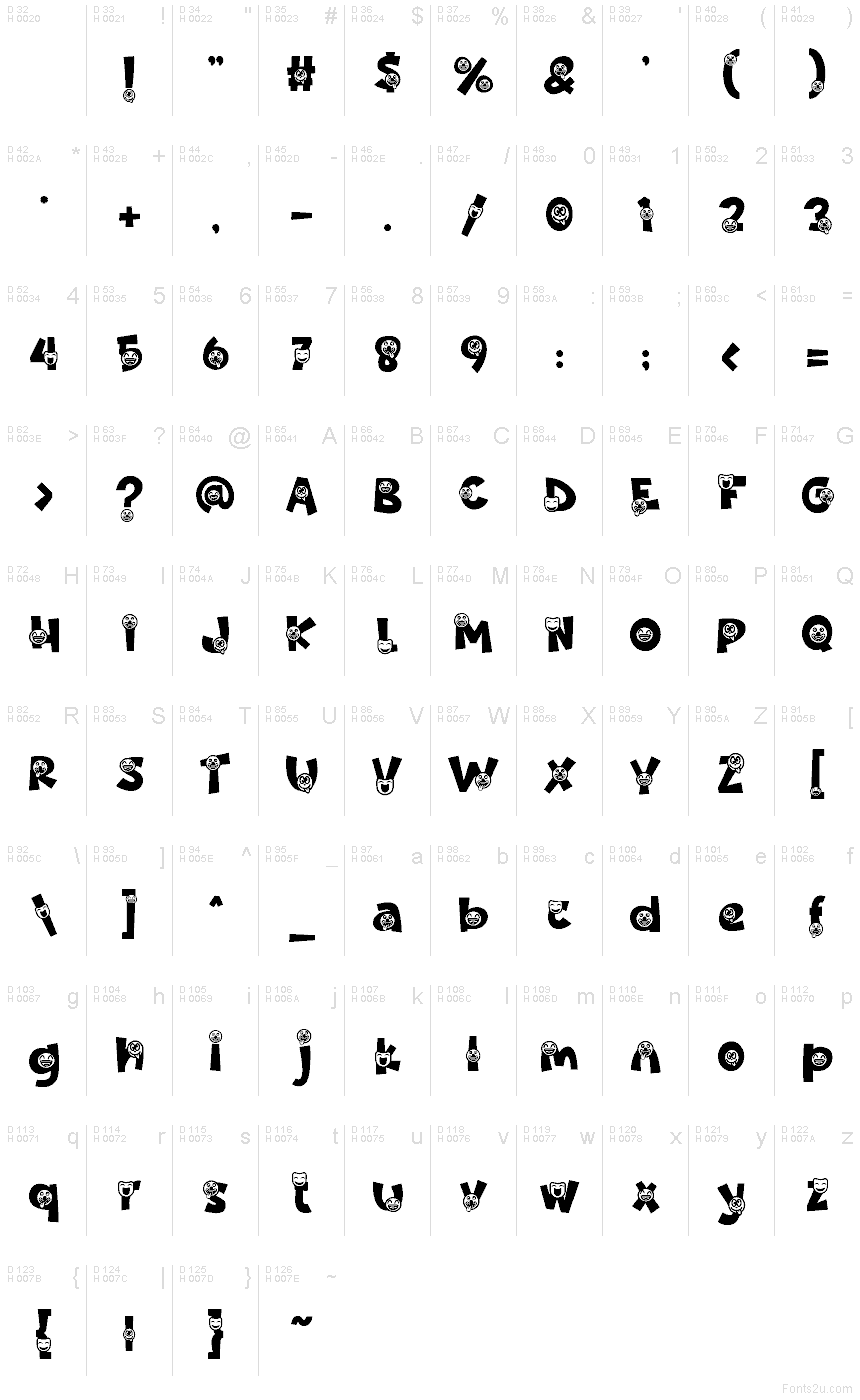
Night Clown Funny
Night Clown font by PutraCetol Studio is a bold decorative display font with distinctive elements. It combines quirky shapes and expressive features reminding of theatrical mask ornaments with different styles. The size variation of the elements create an entertaining theme and mood ideal for headings.
Being free and easy-to-use, Night Clown can be used for profiles, posters, covers, invitations, ads, labels, packaging designs, film titles.